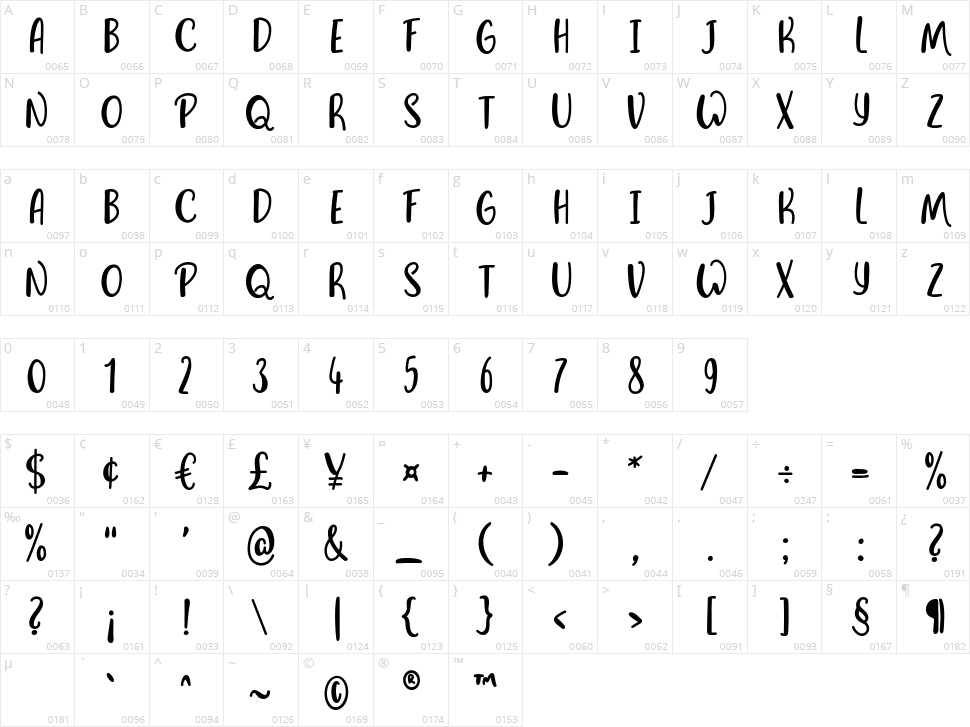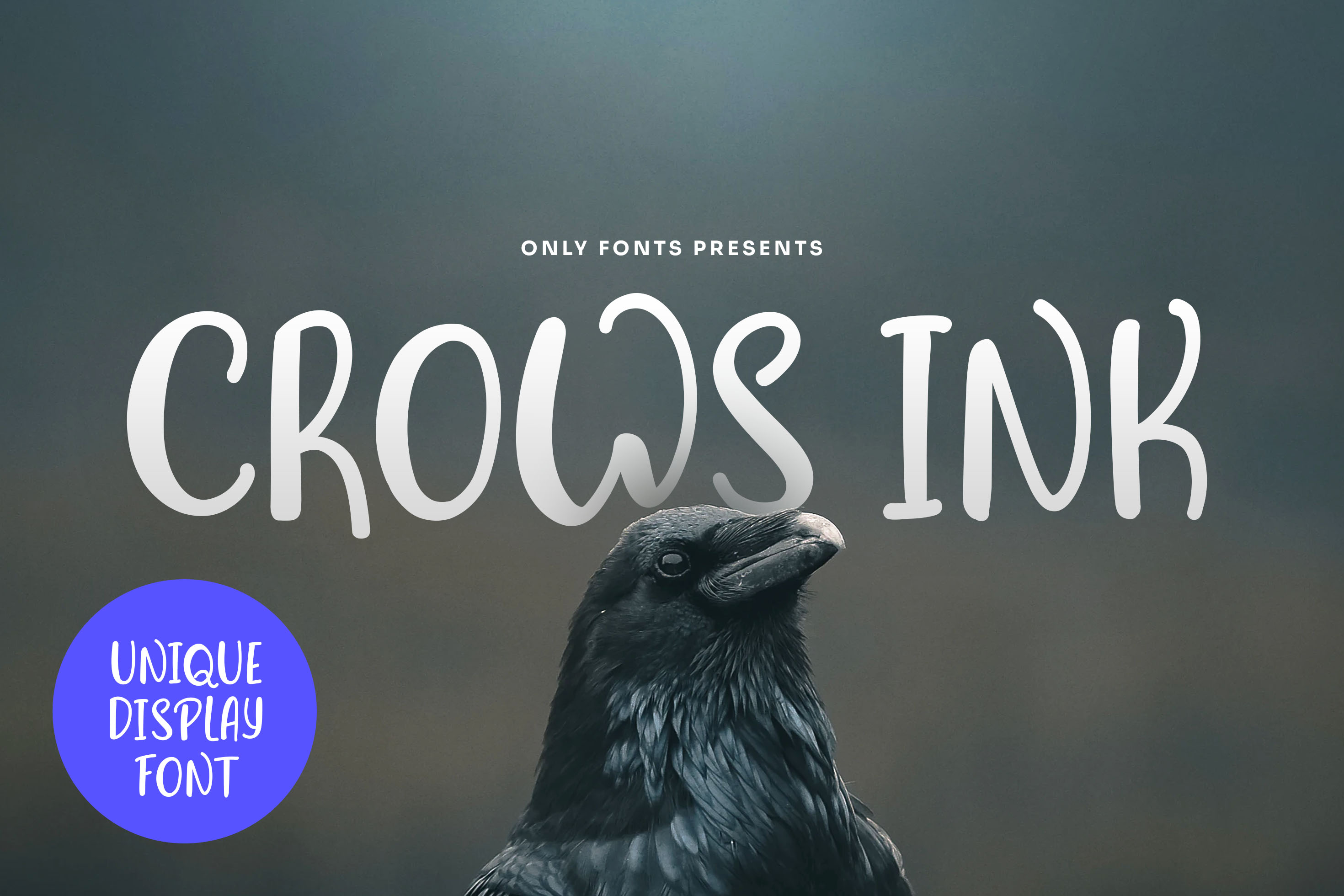
"Crows Ink" is a very unique display font that features dynamic and organic letters. Stand out with this script/handwritten styled headline font in style.